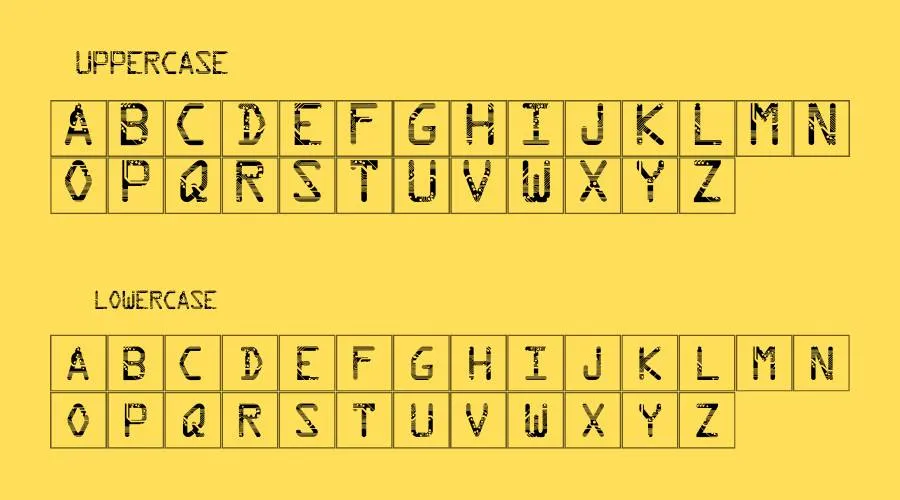
About Circuit Font
Virág Veszteg designed Circuit Font it looks similar to any electronic circuit, and it has small and capital characters it belongs to the techno typeface family.
Among its many alternatives, the desiree becker font is the most suitable replacement for this pleasant typeface. The unique glyphs and vectors of this font can be utilized to make incredible new form designs. It has more than 1001 characters with unique appearance, making it a beautiful typeface.